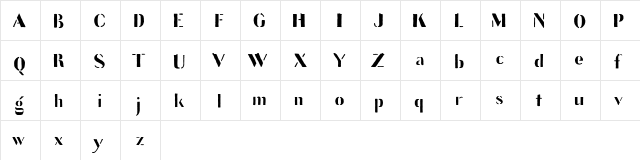
StencilFullBETA Regular
Design Context for StencilFullBETA Typeface
StencilFullBETA has the rough pragmatism of spray-painted stencil signage, adding a raw, street-level authenticity to designs.
A strong choice for packaging that needs edge, warehouse aesthetics, and rough-and-ready visual identities.
Pro Tip: Use StencilFullBETA at large sizes on packaging, posters, or apparel where the stencil cutaways read clearly. Avoid small sizes where those gaps become visual noise.